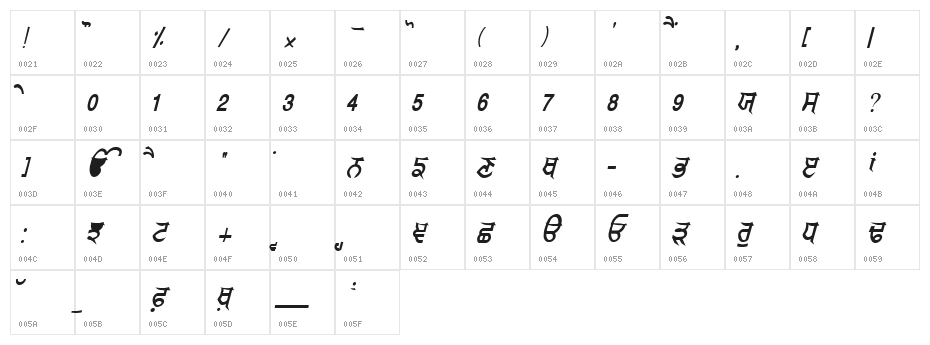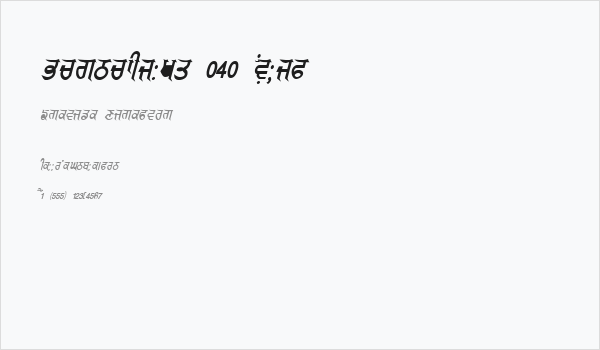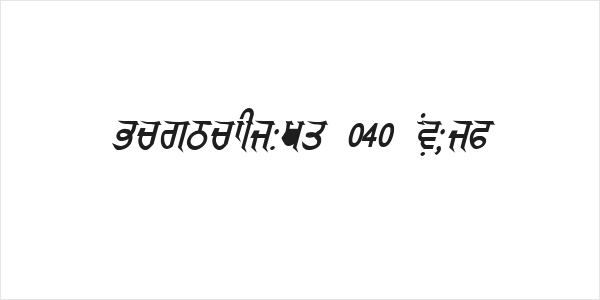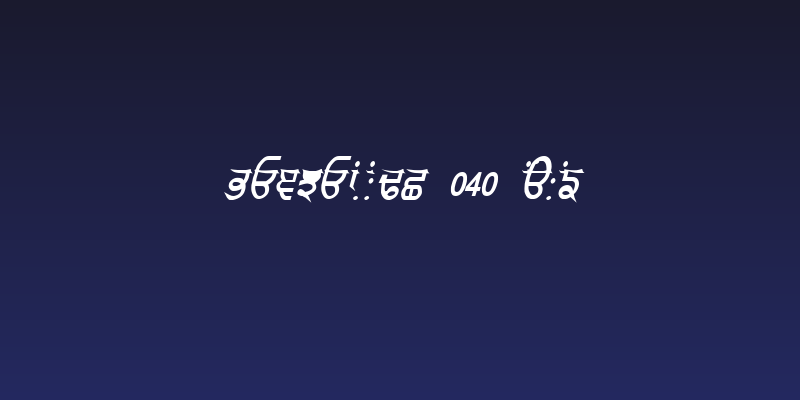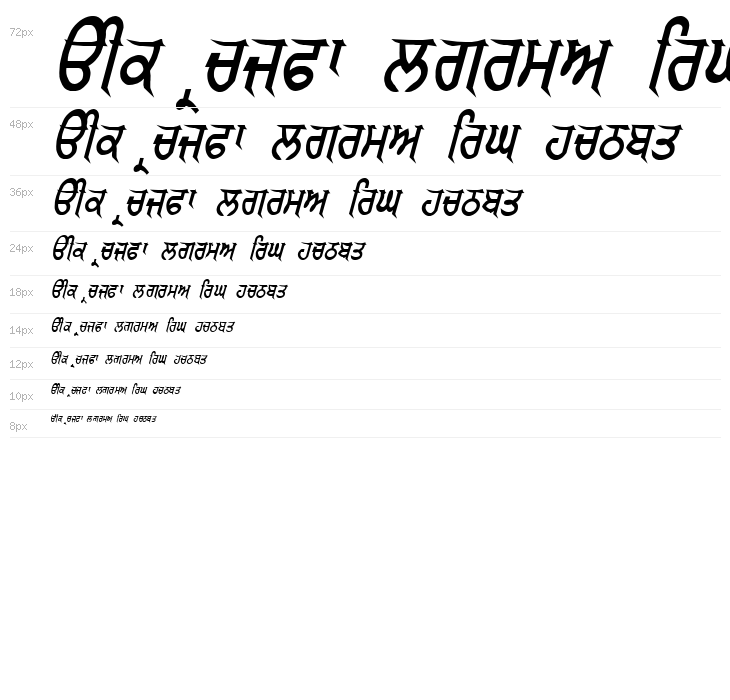
GurmukhiLys 040 Italic Font
GurmukhiLys 040 Italic Description
This font presents a dynamic and flowing style, characterized by its italicized form and distinct Gurmukhi script. The characters exhibit a rhythmic and cursive quality, with smooth curves and sharp edges that create a sense of movement and elegance. The numerals are bold and clear, maintaining the same stylistic elements as the script, ensuring consistency across all characters. The special characters are uniquely designed to complement the overall aesthetic, adding a touch of sophistication. This font is ideal for projects that require a traditional yet modern touch, capturing the essence of cultural heritage while remaining versatile for various applications.
| Use Case | Headlines, Artistic projects, Cultural publications |
| Proposed Projects | Ideal for cultural publications, artistic projects, and branding that requires a traditional yet modern aesthetic. |